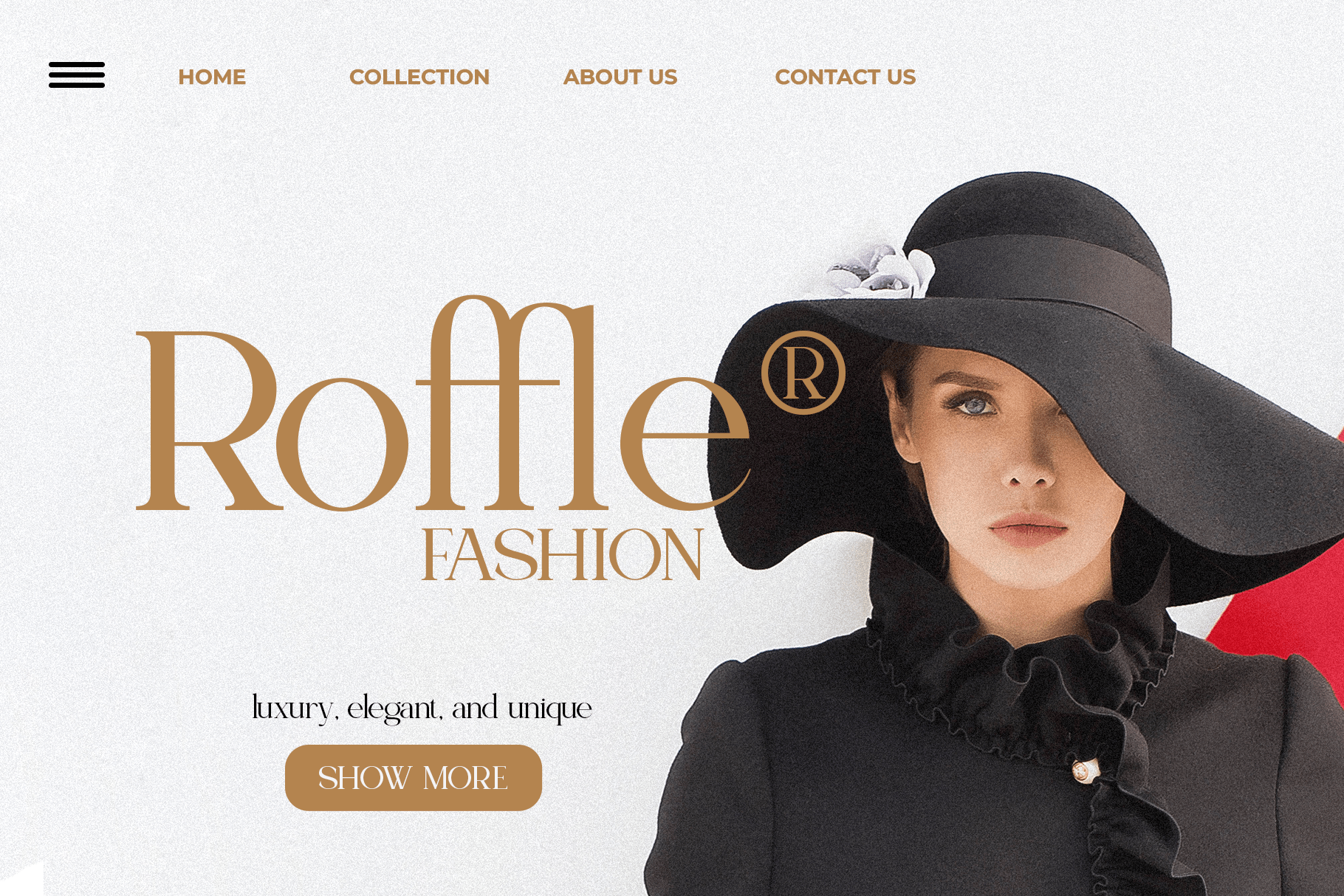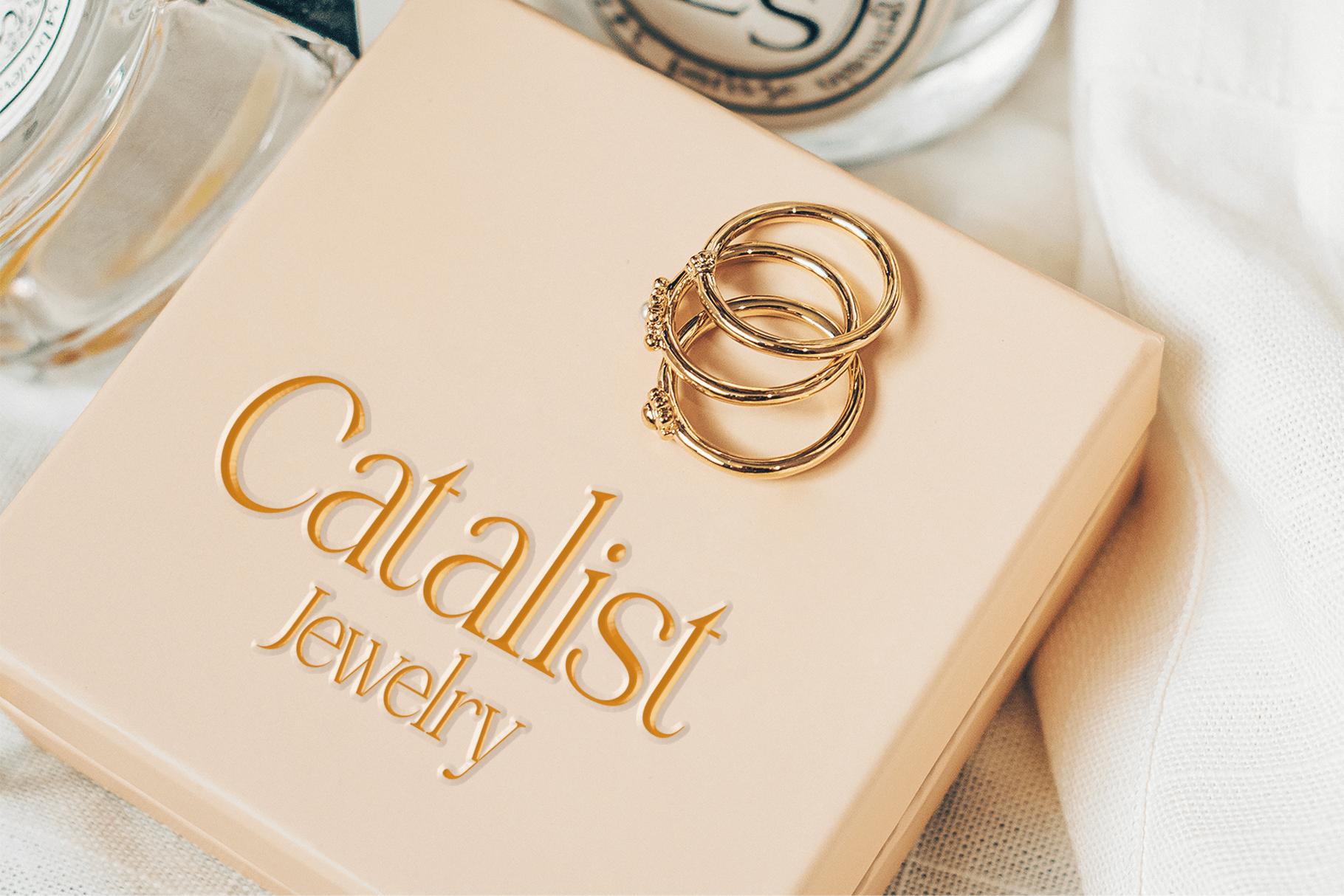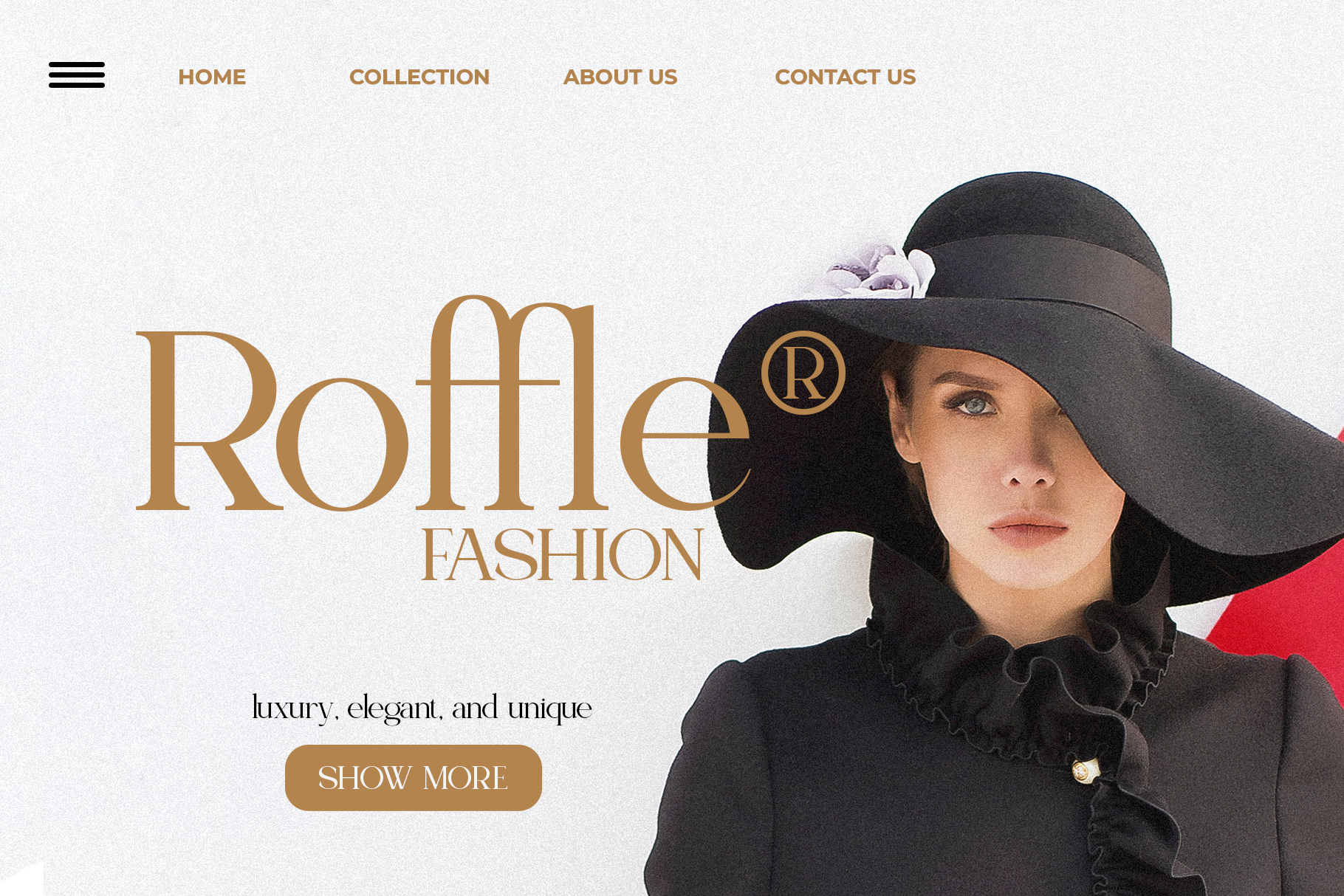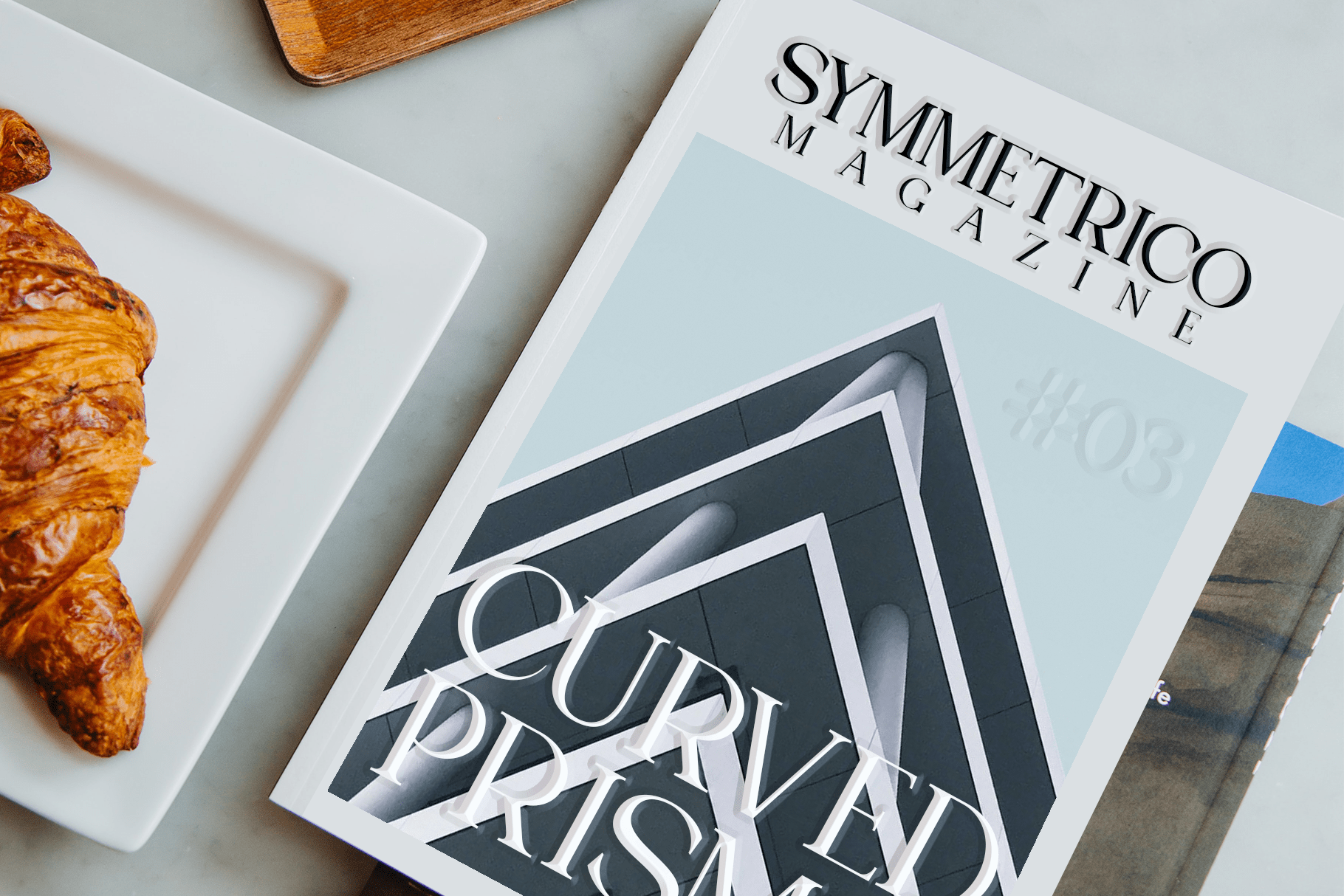
Olivera Font
Olivera Serif Font Is A Chic Serif Fonts Inspired By Modern and Ligature Characters. Olivera is perfect for logos, branding, advertisements, product packaging, cosmetics, posters, quotes and more!